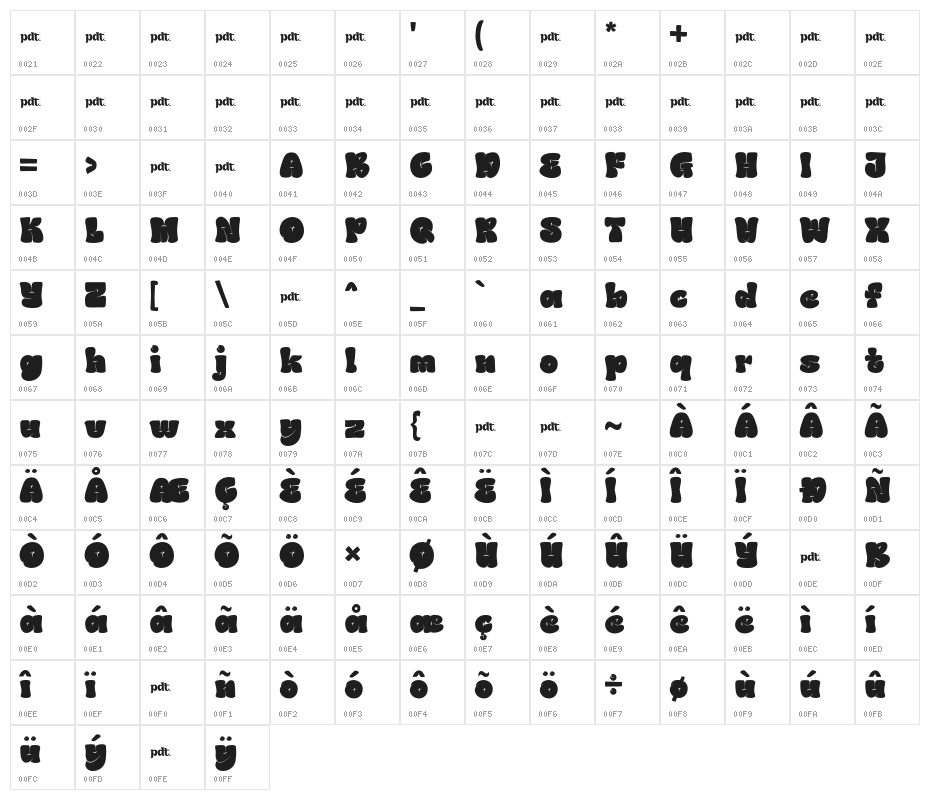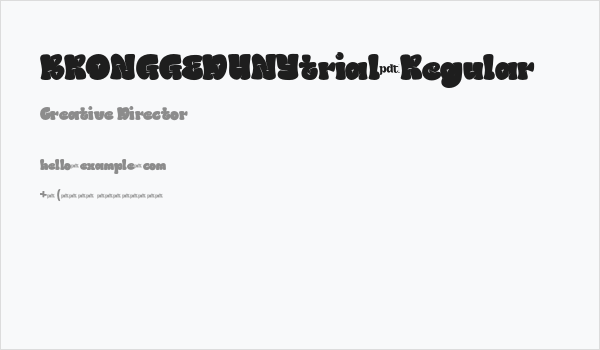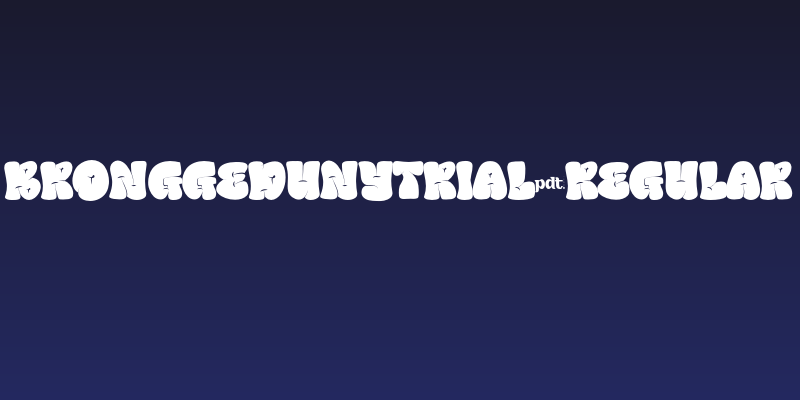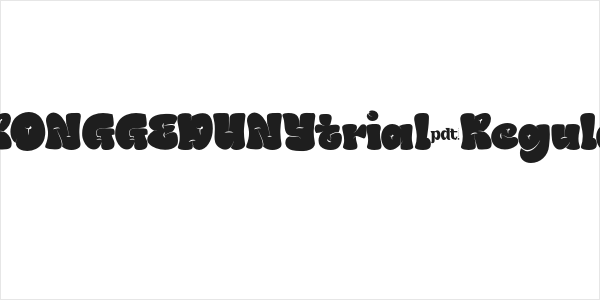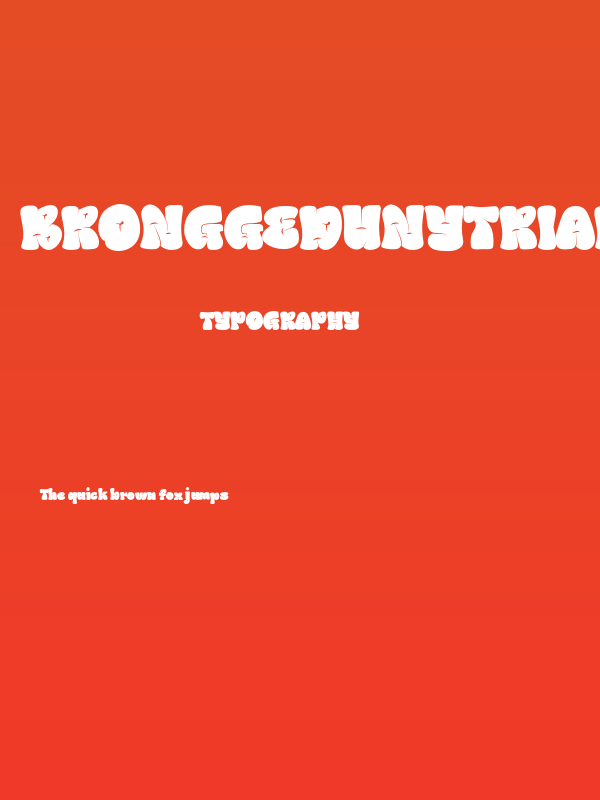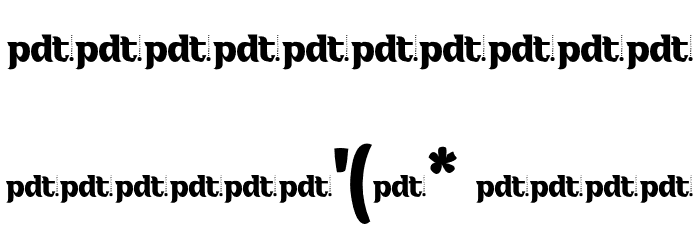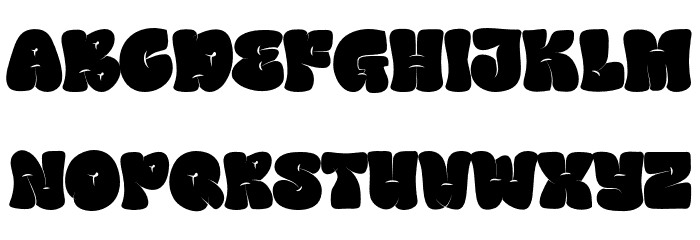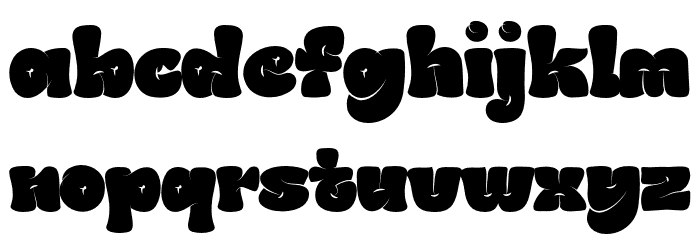
BRONGGEDUNYtrial-Regular Font
BRONGGEDUNYtrial-Regular Description
This font features bold, rounded characters with a playful and chunky appearance. The letters are heavily weighted, giving them a strong presence on the page. The rounded edges and thick strokes create a sense of friendliness and approachability. Each character is distinct, with a consistent style that maintains readability despite the boldness. The font includes both uppercase and lowercase letters, numbers, and a selection of special characters, all designed with the same bold, rounded style.
| Overall Style | Playful, Bold, Friendly |
| Proposed Projects | Ideal for children's books, playful branding, posters, and any design requiring a fun and bold typeface. |